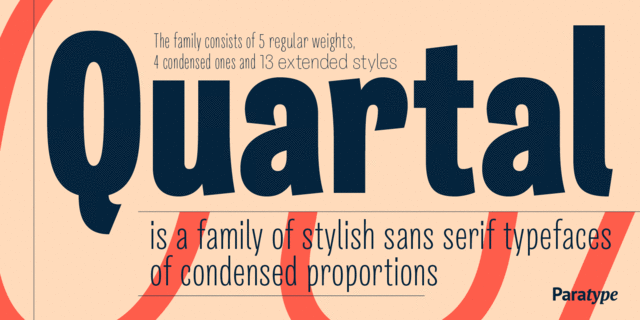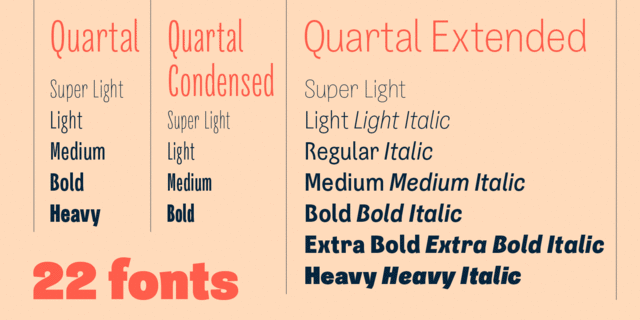
Quartal (22 fonts)
About QuartalQuartal is a family of stylish sans serif typefaces of condensed proportions. The family consists of 5 regular weights, 4 condensed ones and 13 extended styles (7 upright and 6 italic). It was originally planned to release only 4 condensed weights for headlines and advertizing texts, but later 5 styles of wider proportions were added. As a result the area of applications became much wider due to the font’s capacity to be used for smaller point sizes. The name Quartal, which means city quarter here, according to the author's associations, emphasizes the advertizing nature of urban environment. The font’s character set covers the alphabets of Western Europe and basic Cyrillic languages. Furthermore, it includes a range of alternatives, especially in Cyrillic part. Quartal was designed by Oleg Karpinsky and released by ParaType in 2010. 13 new styles of extended proportions were added to the Quartal family In 2011. 7 new weights and 6 corresponding italics make Quartal useful for setting of longer texts in display ads, and for magazines as well.
Associations for font family QuartalTypeface personality and character:
slim, tall, weightless, transparent, thin, easy, wire, urban, original, interesting, loud, important, close-fitting, heavy, motivating, ambitious, intimate, fragile, tender, air, solid, powerful, strong, manly, notable, bright, active, splashy, tough